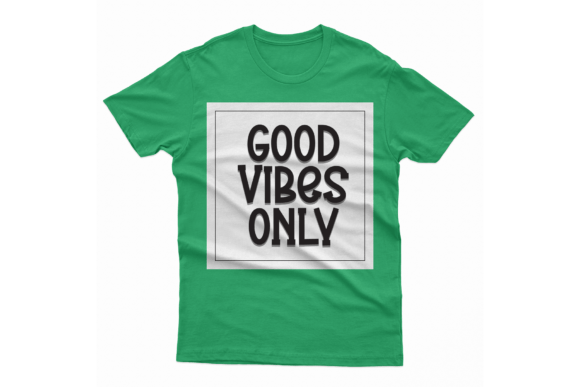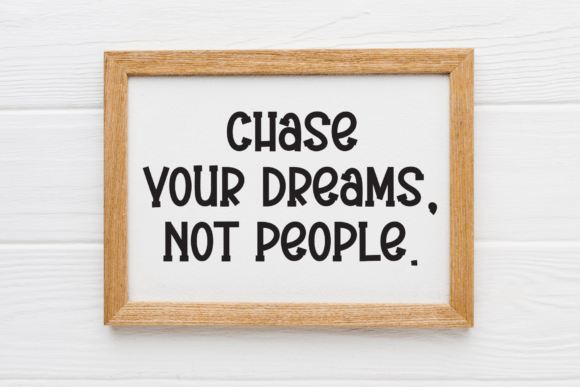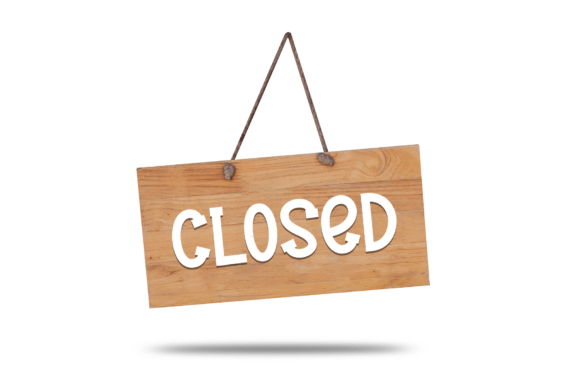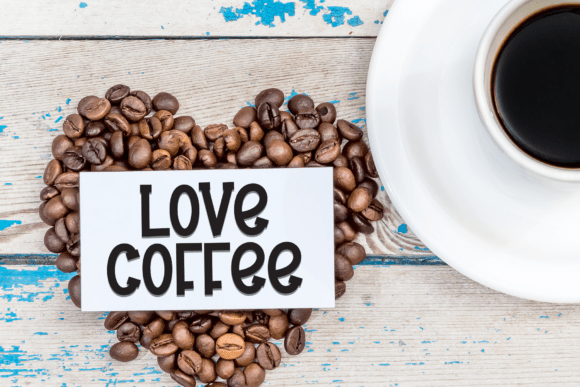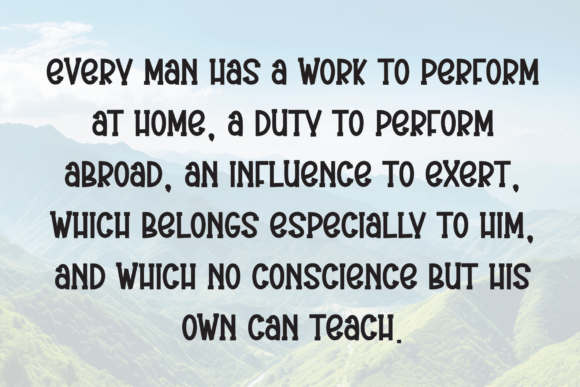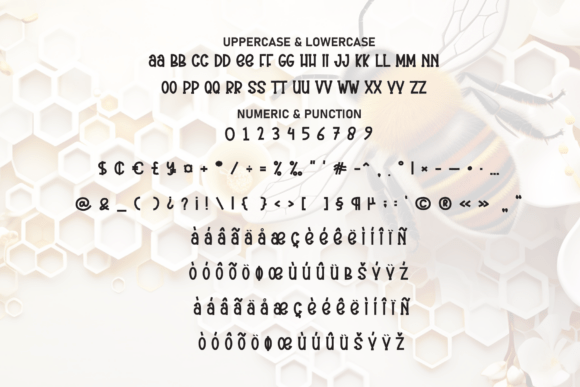
The Sweet Spot for Designers: Honey Bee Font
Have you ever been working on a design project and stumbled upon that perfect font that just makes everything click into place? For many designers, this moment is a game-changer. It’s the difference between a good design and a great one. For those who’ve been searching for that elusive font, we’re excited to introduce you to the Honey Bee Font – a casual and neat display font that’s sure to bring a smile to your face.
This charming font is designed to add a warm and inviting touch to any design, from branding and headlines to packaging and digital content. With its clean lines, balanced letterforms, and subtle rounded edges, the Honey Bee Font is the perfect combination of simplicity and style. Its versatility makes it a valuable asset for designers looking to add a touch of modern handwritten typography to their work.
Honey Bee Font Key Features
- Font Family: Honey Bee Font comes in two font families – Regular and Bold, making it suitable for various design needs.
- Unique Characteristics: The Honey Bee Font features a unique, hand-drawn design with a playful and whimsical feel, making it perfect for creative projects.
Honey Bee Font Review
I recently had the chance to work with the Honey Bee Font, and overall, I was impressed. Here are some of the things that stood out to me: ✨
- Unique aesthetic: The Honey Bee Font has a charming, vintage vibe that’s perfect for projects that need a touch of whimsy.
- High-quality design: The font is well-crafted, with smooth lines and a consistent style throughout.
- Good legibility: The font is clear and easy to read, even at smaller sizes.
However, there are a few limitations to keep in mind: ⚠️
- Limited font family: The Honey Bee Font only includes a few styles, which may limit its versatility.
- No language support: The font only includes Latin characters, which may not be suitable for projects that require other languages.
- Not ideal for small text: While the font is legible, it may not be the best choice for small text due to its rounded shapes.
Overall, I think the Honey Bee Font is a great choice for projects that need a unique, vintage aesthetic. While it may have some limitations, it’s a well-designed font that can add a touch of personality to your work.
Tips for Getting the Most Out of Honey Bee Font
Use the Honey Bee Font for headings and titles to add a touch of whimsy and personality to your designs.
Pair the Honey Bee Font with other playful fonts or graphics to create a cohesive and eye-catching visual identity.
Experiment with different font sizes and colors to find the perfect balance for your design.
The Honey Bee Font is perfect for:
Children’s party invitations and decorations
Food and beverage branding (e.g., honey-themed products)
Summer-themed designs (e.g., beach, garden, or outdoor events)